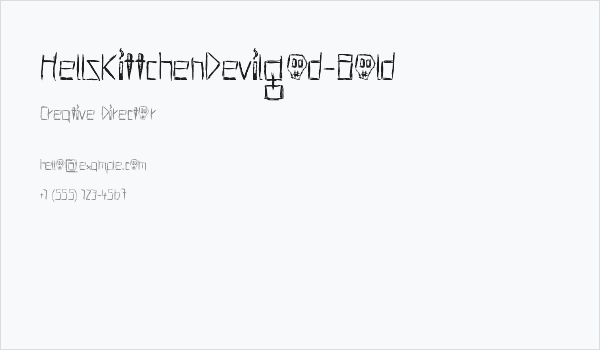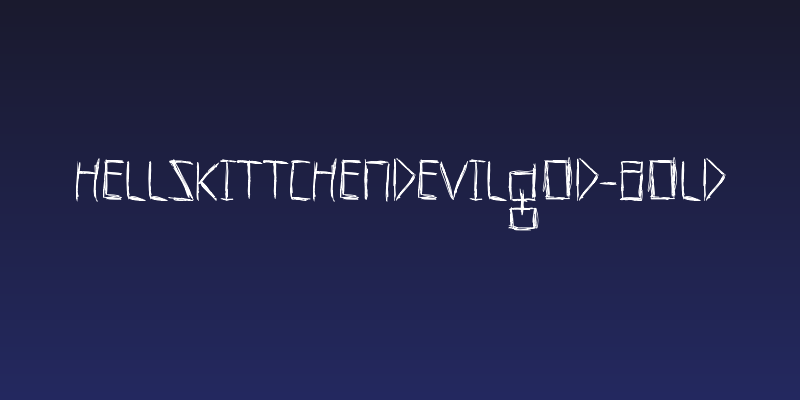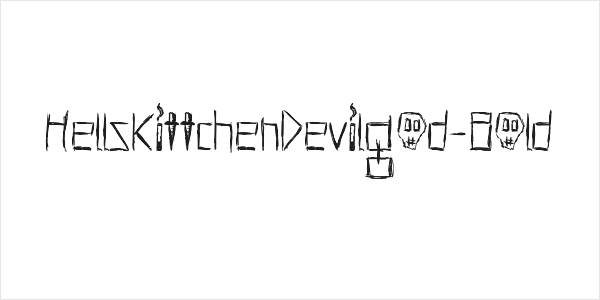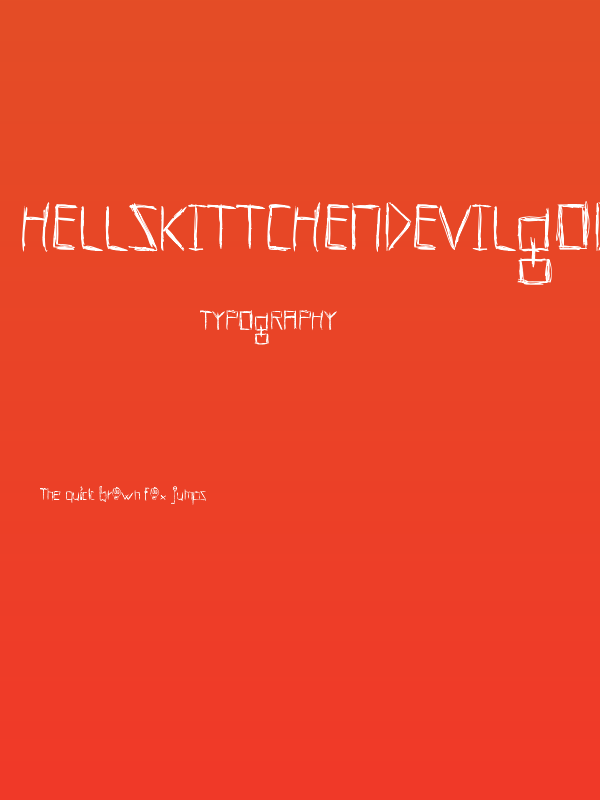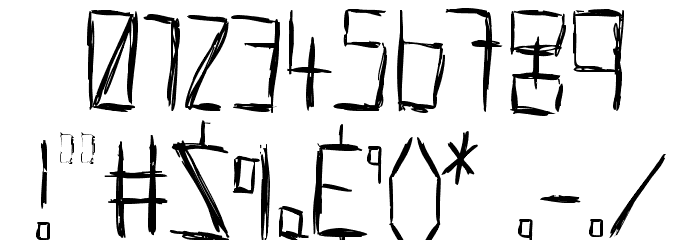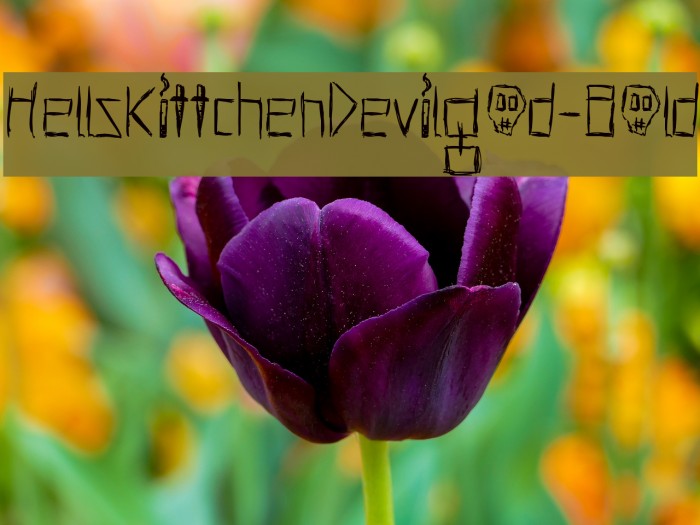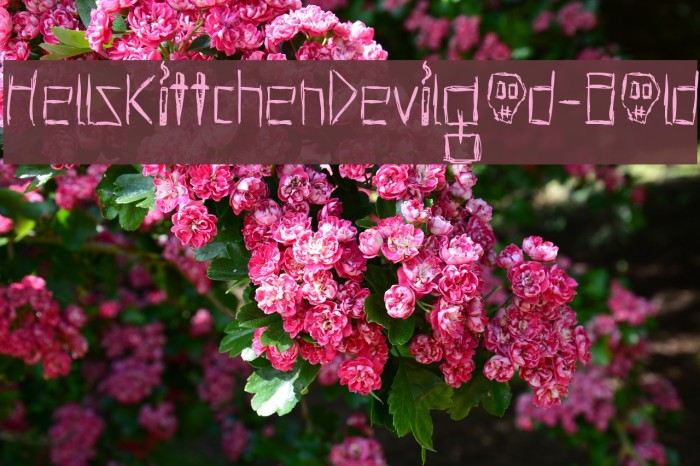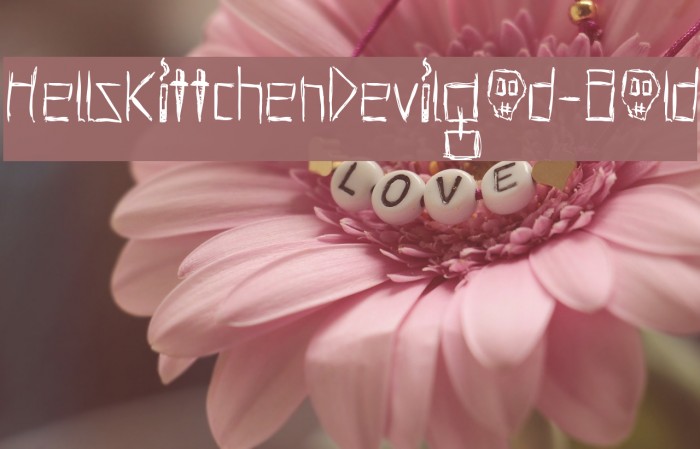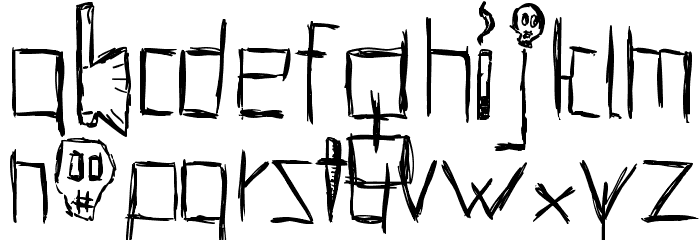
HellsKittchenDevilGod-Bold Font
HellsKittchenDevilGod-Bold Description
This font features a bold and edgy design with a hand-drawn, sketch-like appearance. The characters are irregular and jagged, giving off a chaotic and rebellious vibe. Each letter has a unique, almost graffiti-like style, with uneven lines and an unpredictable structure. The font includes uppercase and lowercase letters, numbers, and a variety of special characters. Its rough, artistic strokes make it stand out, perfect for projects that require a raw and unconventional aesthetic.
| Proposed Projects | Ideal for album covers, poster designs, street art projects, and edgy branding materials. |